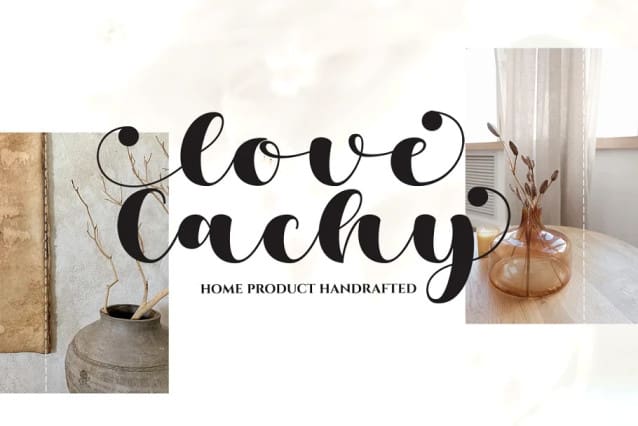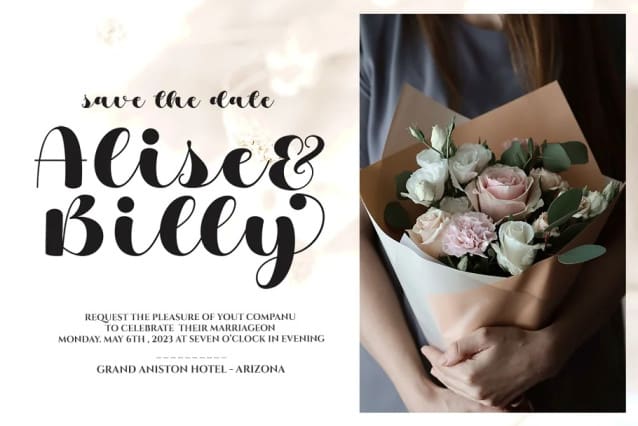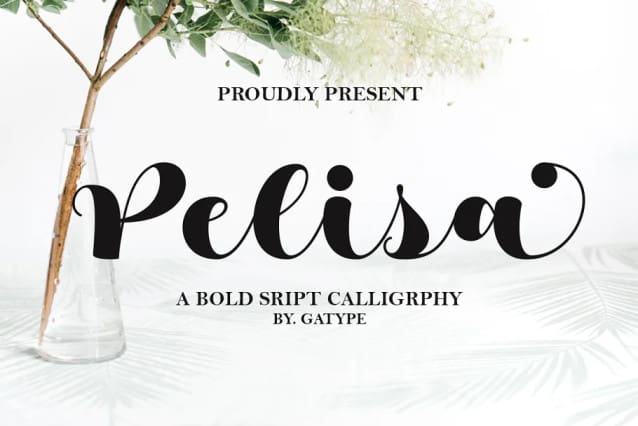
Pelisa Script Font
Pelisa Script Font, is a modern calligraphy design volume including four fonts. a regular script, style script and upright script. This font is casual and graceful. Ideal for wedding invitations, signage, headlines, logos, packaging, product branding, etc.
Pelisa Script including OpenType Stylistic alternates, ligatures and international language support.